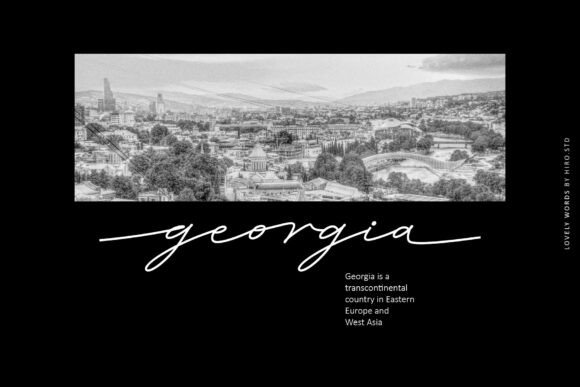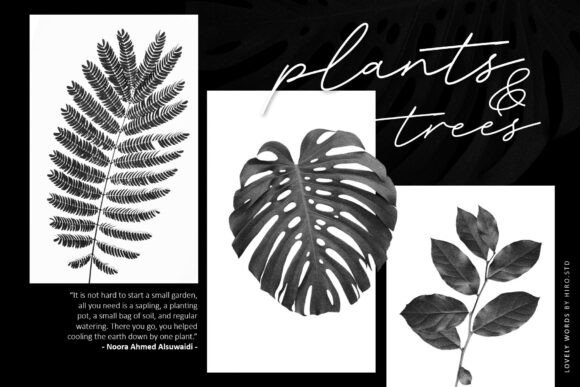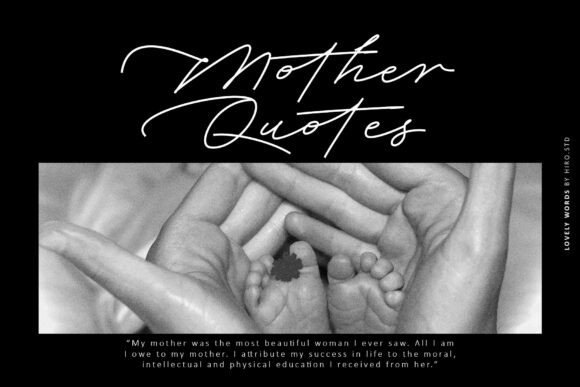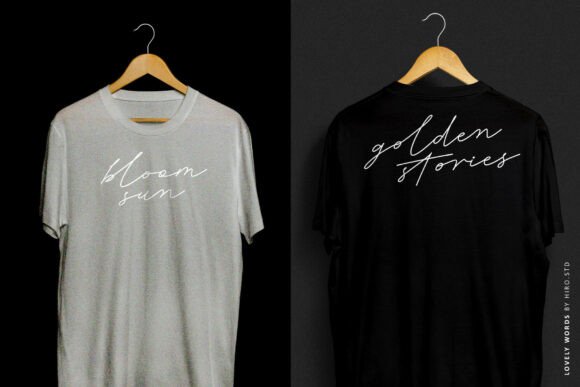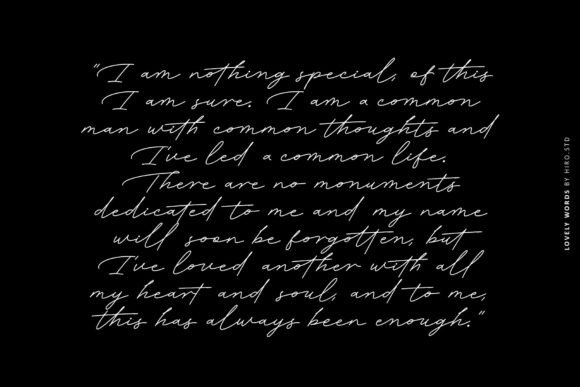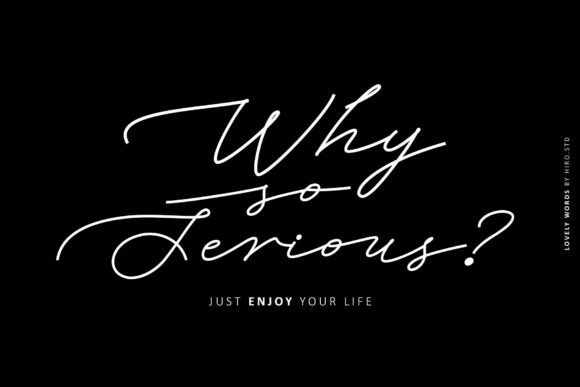
Introduction to Lovely Words Font
Remember the moment when you finally found the perfect font to match your brand’s personality? For many designers, this moment is a game-changer. It’s the spark that ignites creativity and brings a project to life. And for those who are about to experience it, we’re excited to introduce you to the Lovely Words Font – a high-quality, elegant handwriting script that’s sure to elevate your design projects.
With its flowing curves and natural rhythm, Lovely Words Font adds a charming touch to invitations, branding, and social media designs. Its sophisticated design is not only visually appealing but also brings a sense of warmth and creativity to any project. Whether you’re working on a personal or commercial project, this design resource is a valuable addition to your toolkit, offering a transparent background that’s perfect for layering and customization.
Key Features of Lovely Words Font
- High-quality, vector-based design for a crisp and clear appearance, making it ideal for a creative project.
- Comes with a transparent background, allowing for easy customization and versatility in design applications.
- Designed with a unique and elegant style, perfect for use as a design resource in various creative projects, such as typography, logos, and graphics.
- Includes a range of words and phrases in a single font, ideal for use in multi-line text or creative typography projects.
- High-resolution design, suitable for use in print and digital applications, including business cards, posters, and website headers.
Honest Review: Lovely Words Font
I recently stumbled upon the Lovely Words Font, and I must say it’s a fantastic addition to any design resource library. This high-quality font is perfect for creative projects where you need a touch of elegance and sophistication.
- ✨ Customizable: The Lovely Words Font comes with a transparent background, allowing you to easily integrate it with your design without worrying about background distractions.
- ✨ Versatile: This font is ideal for various design projects, including wedding invitations, quotes, and social media graphics.
However, I did encounter a few limitations: ⚠️
- ⚠️ Limited font sizes: The Lovely Words Font is only available in a limited range of font sizes, which might not be ideal for larger or more complex designs.
- ⚠️ No bold or italic versions: Unfortunately, the font doesn’t come with bold or italic versions, which can make it harder to emphasize certain text in your design.
How to Use Lovely Words Font
The Lovely Words Font is a high-quality, free download design resource perfect for creative projects. With its unique and creative design, it’s an ideal addition to any project requiring a touch of elegance and sophistication.
For the best results, use the Lovely Words Font in conjunction with other design elements such as images and graphics. Experiment with different font sizes, colors, and combinations to find the perfect look for your project.
The Lovely Words Font is ideal for use in various creative projects such as wedding invitations, birthday cards, and social media graphics. Its elegant design and high-quality texture make it a popular choice among designers.